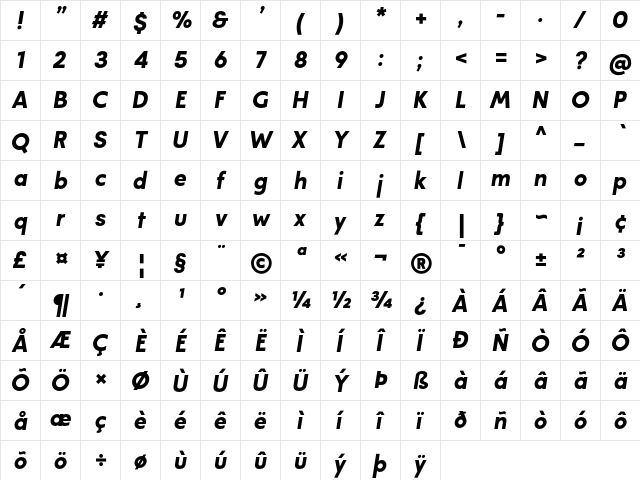
Modeco Trial Bold Italic
Design Context for Modeco Trial Typeface
Modeco Trial is a composed and adaptable typeface that performs quietly and consistently across a wide range of design contexts. Its italic angle brings a sense of urgency and motion to the letterforms. The heavy weight commands attention and anchors typographic hierarchies.
Pro Tip: Use Modeco Trial for emphasis, pull quotes, and subheadings where its slanted energy can add rhythm to the layout.